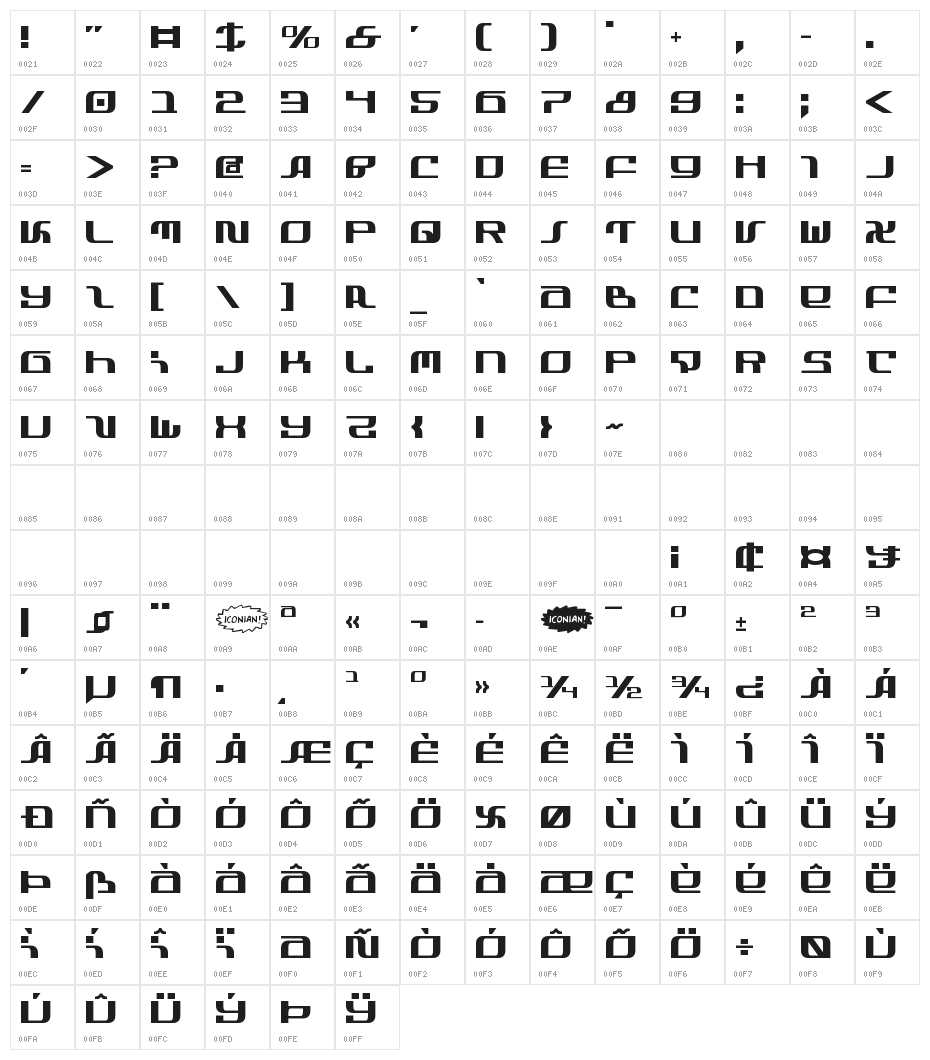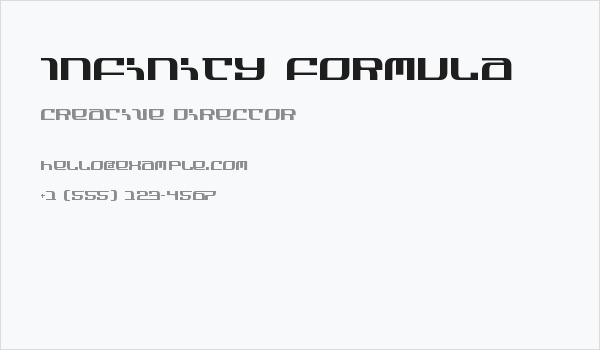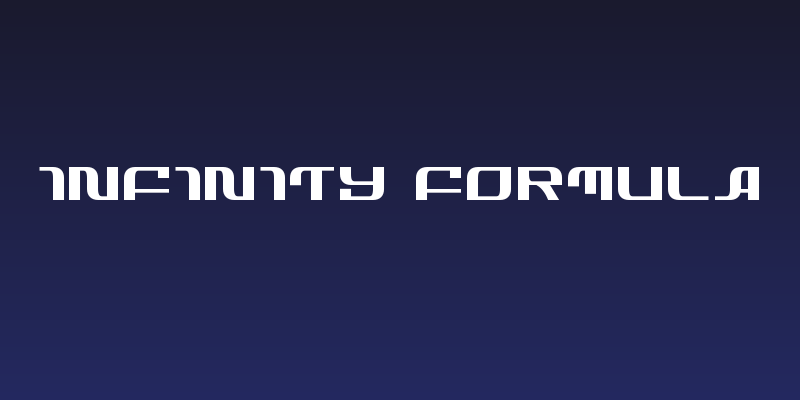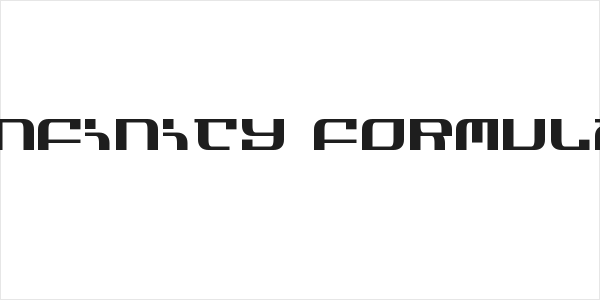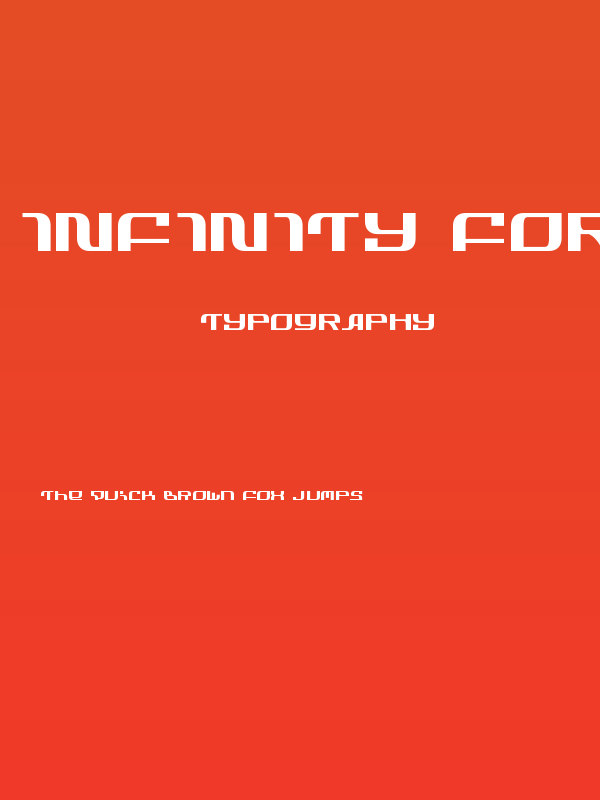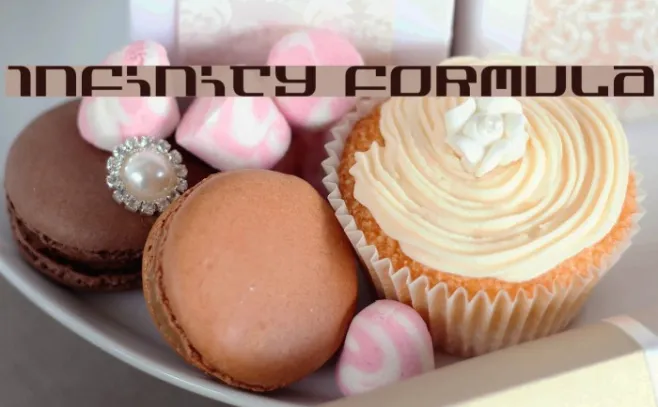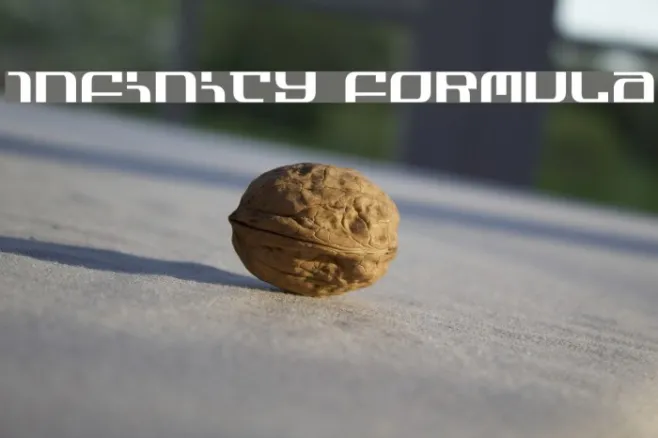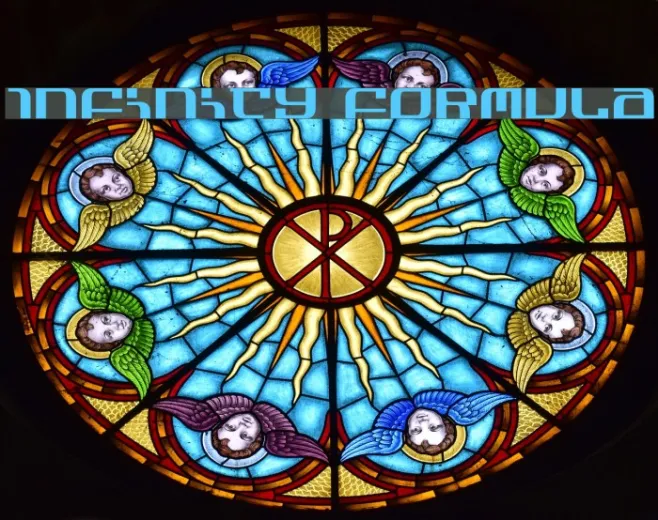
Infinity Formula Font
Infinity Formula Description
This font features a futuristic and geometric design with a strong emphasis on angular shapes and clean lines. The characters are bold and have a unique style that combines both sharp and rounded elements, creating a dynamic and modern appearance. The uppercase and lowercase letters maintain a consistent design language, with some characters exhibiting a distinctive cut-out effect that adds to the font's visual interest. The numerals and special characters follow the same design principles, ensuring uniformity across all glyphs. This font is well-suited for projects that require a contemporary and tech-inspired aesthetic.
INFINITY-FORMULA UPPERCASE
INFINITY-FORMULA LOWERCASE
INFINITY-FORMULA OTHER CHARS